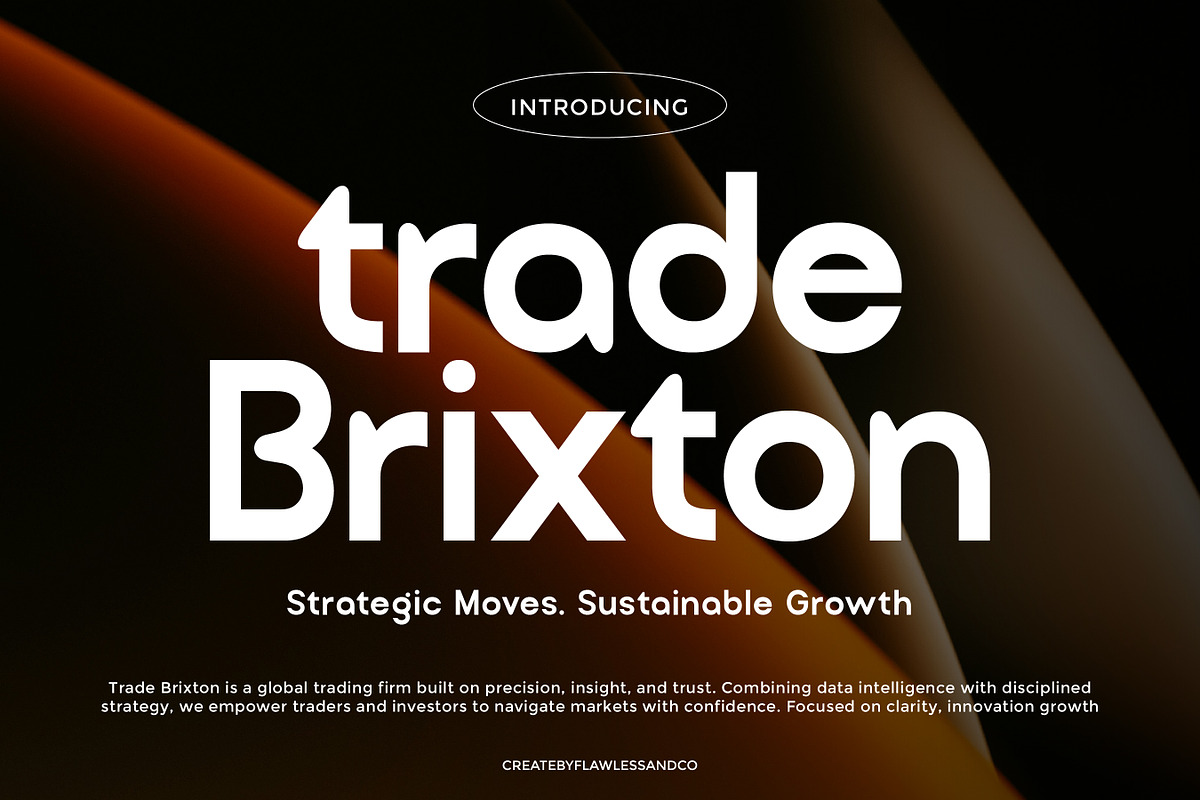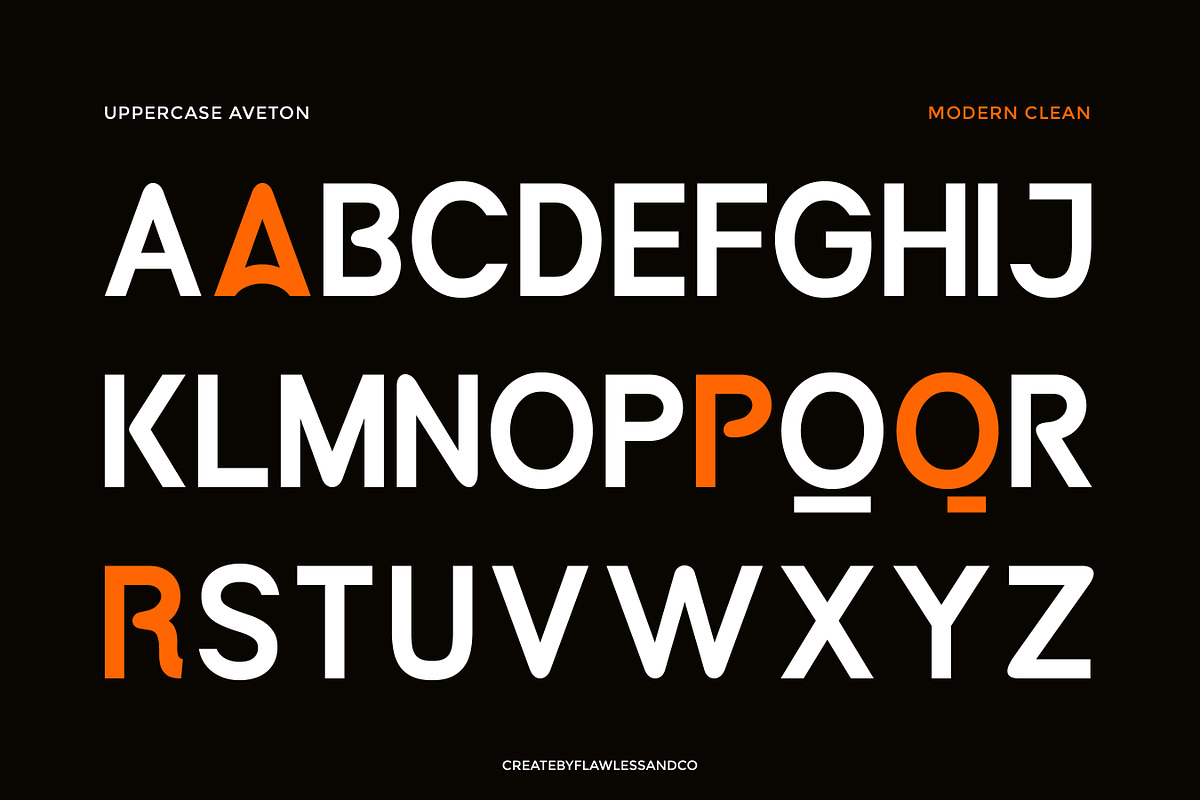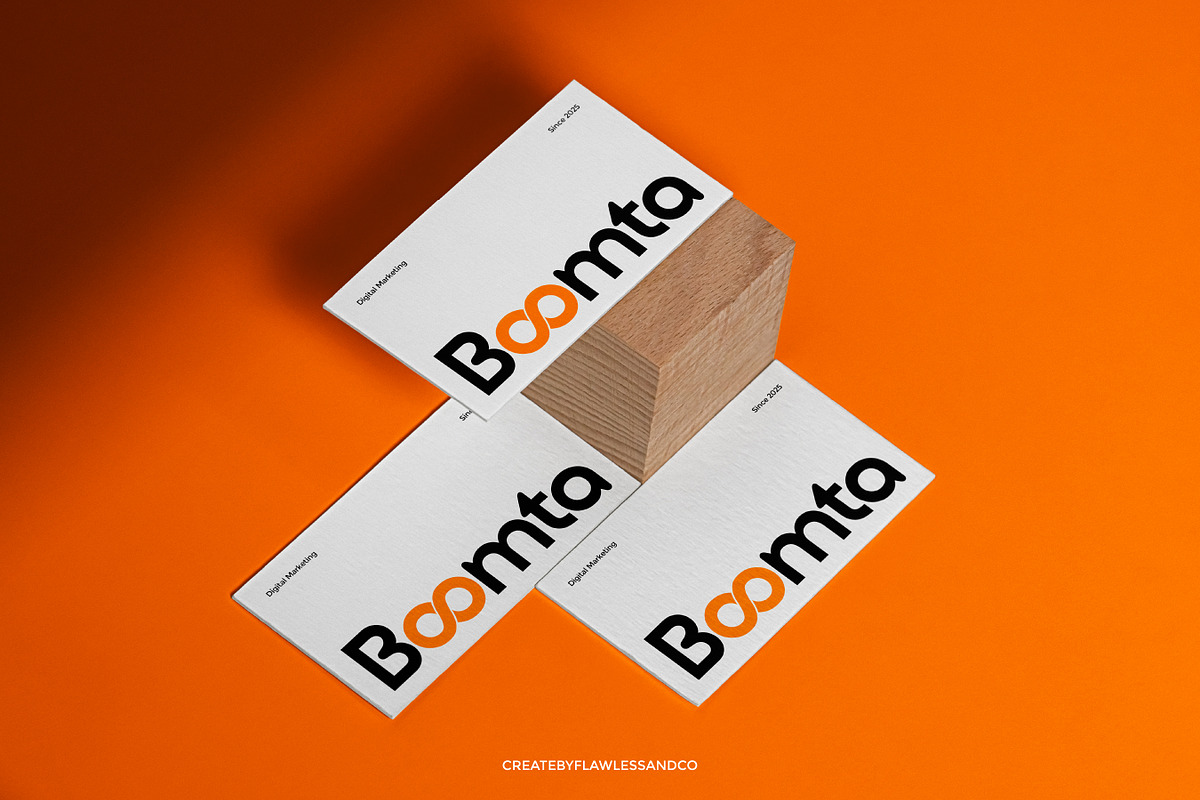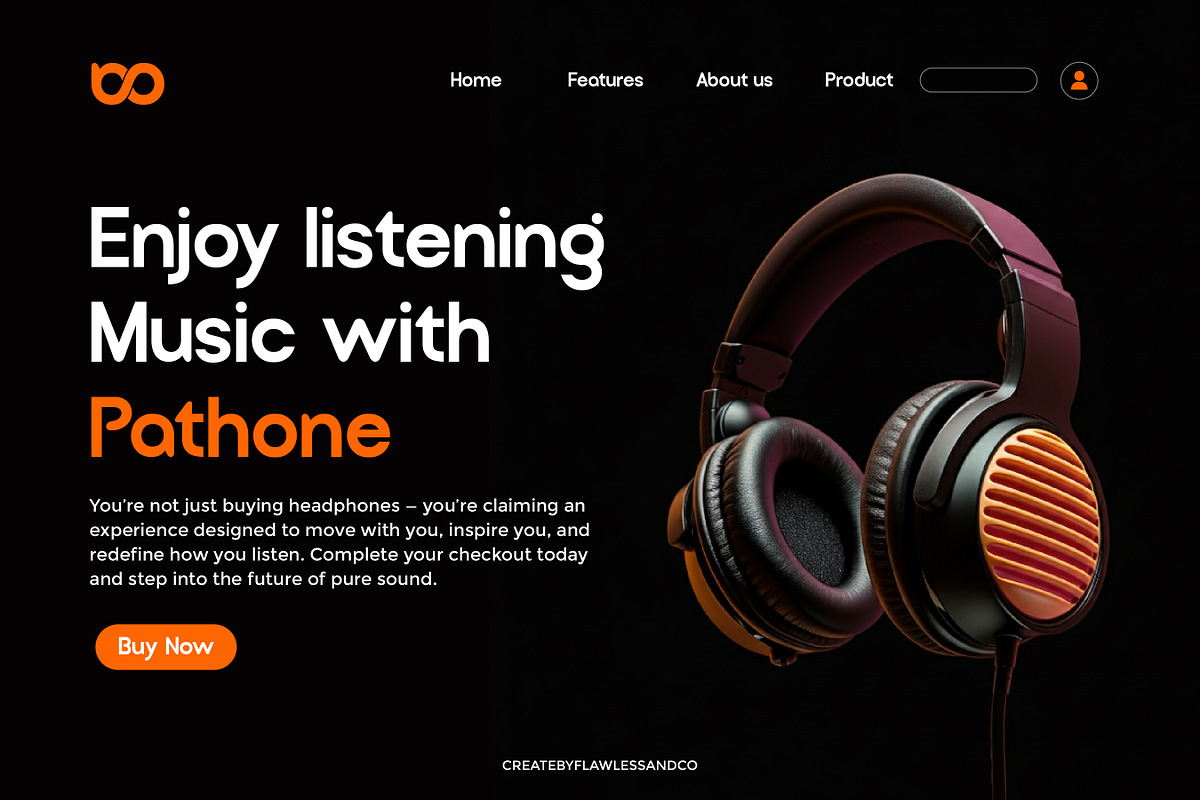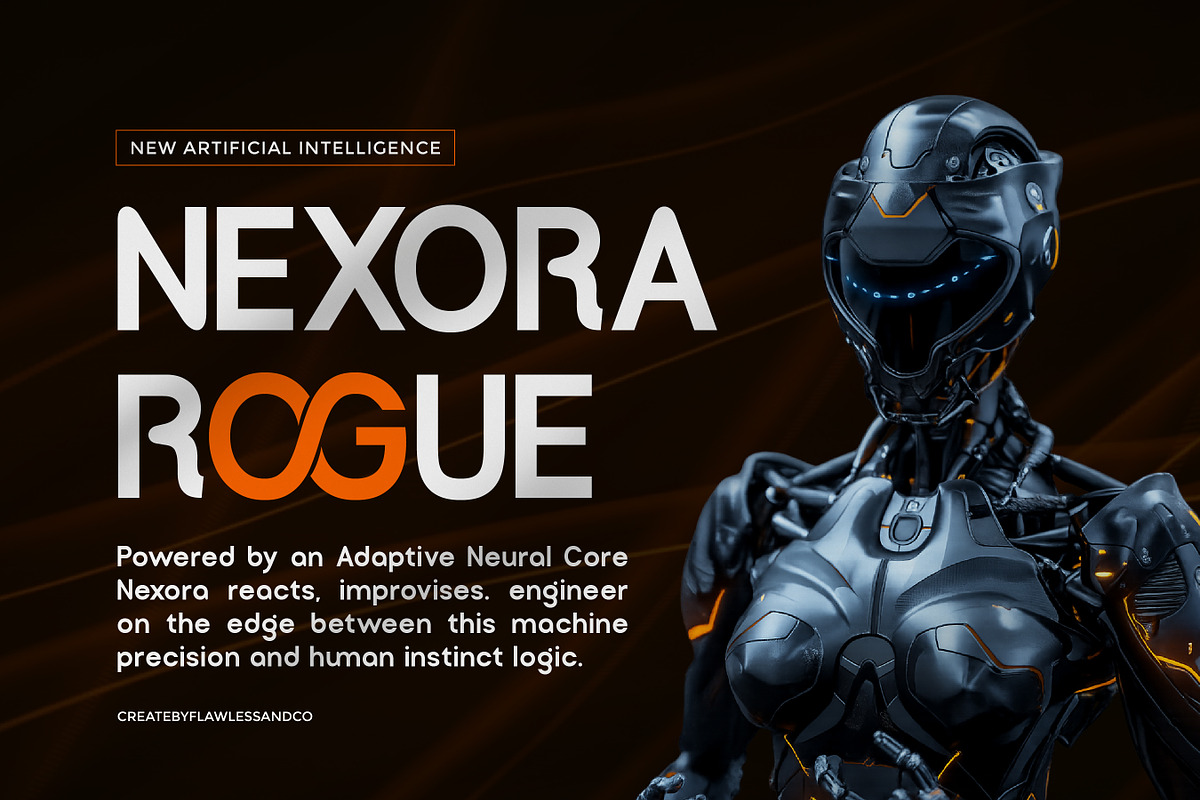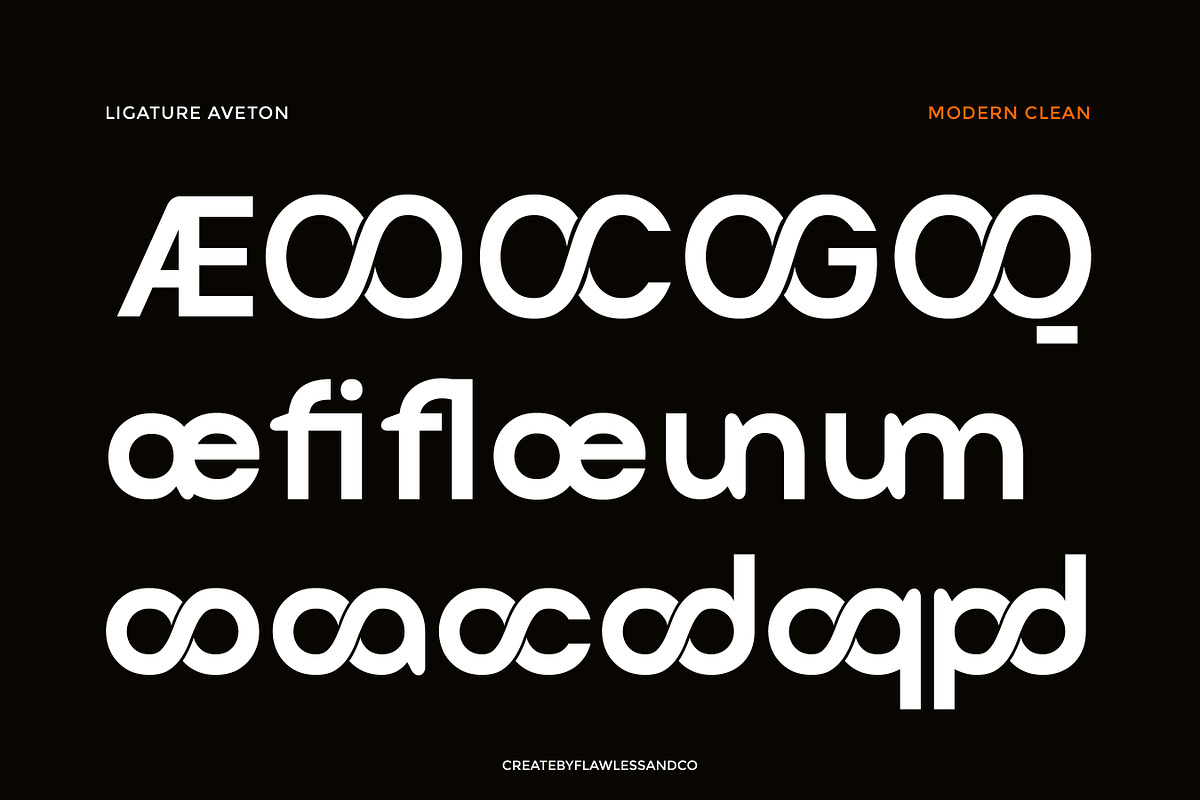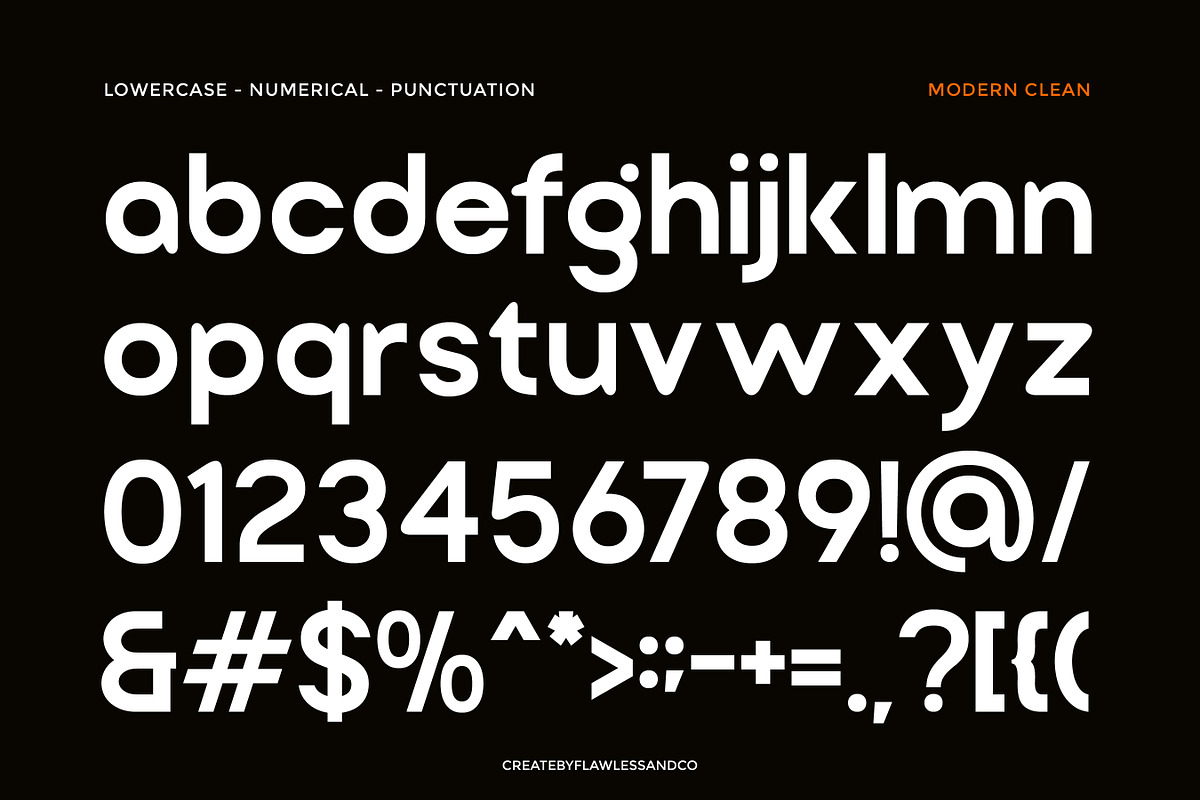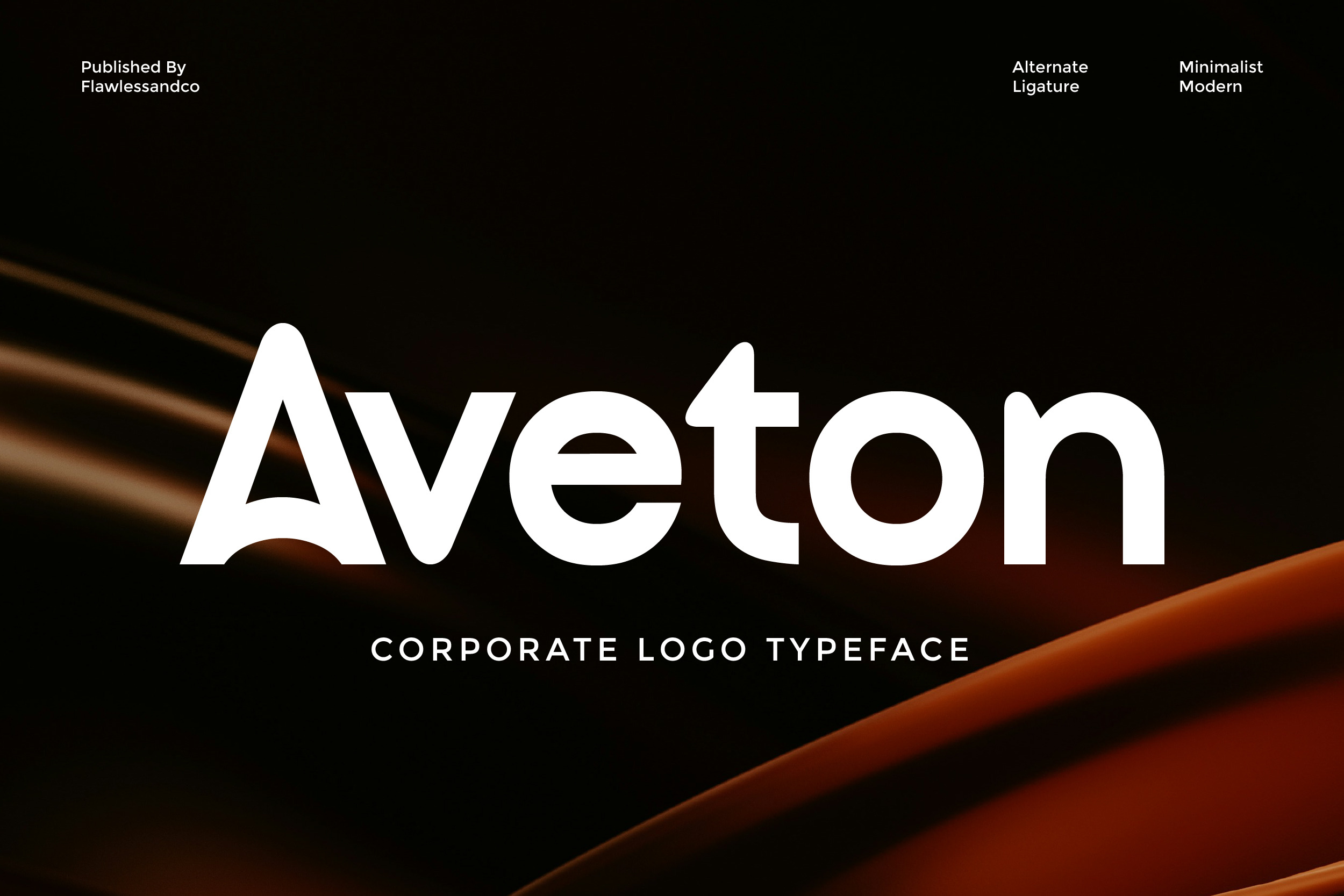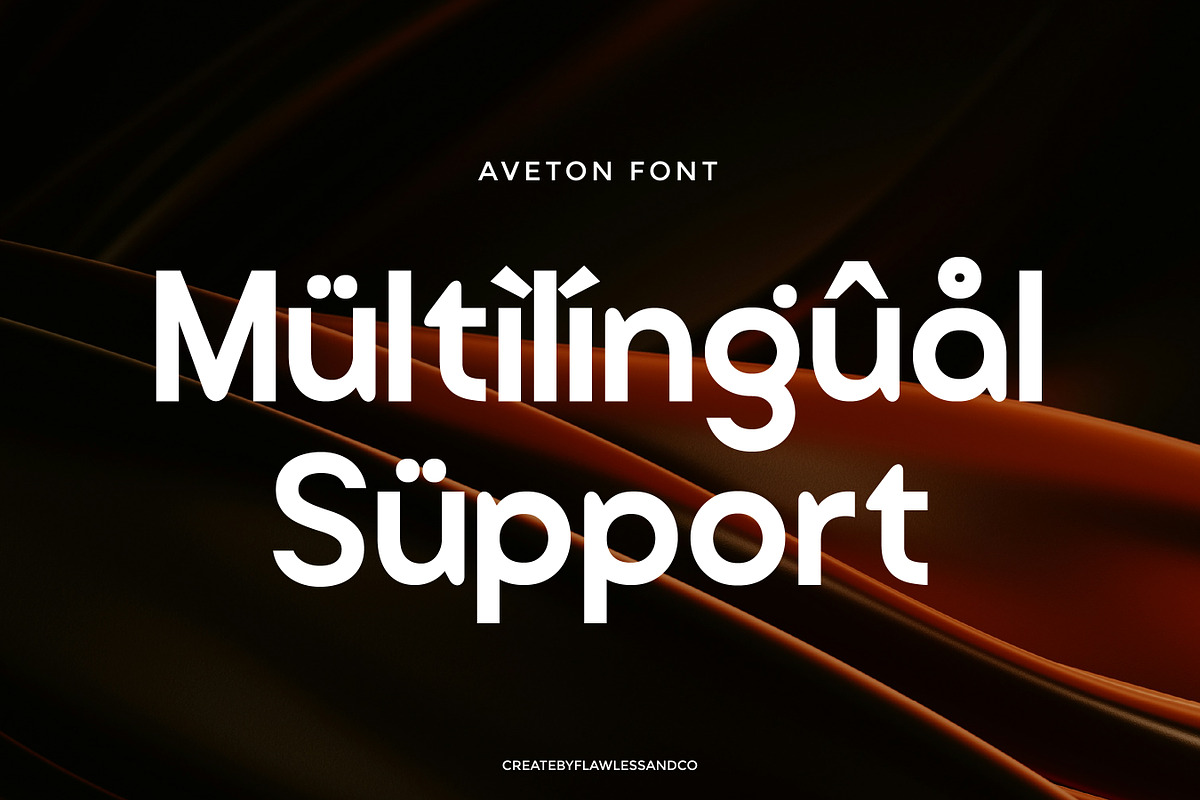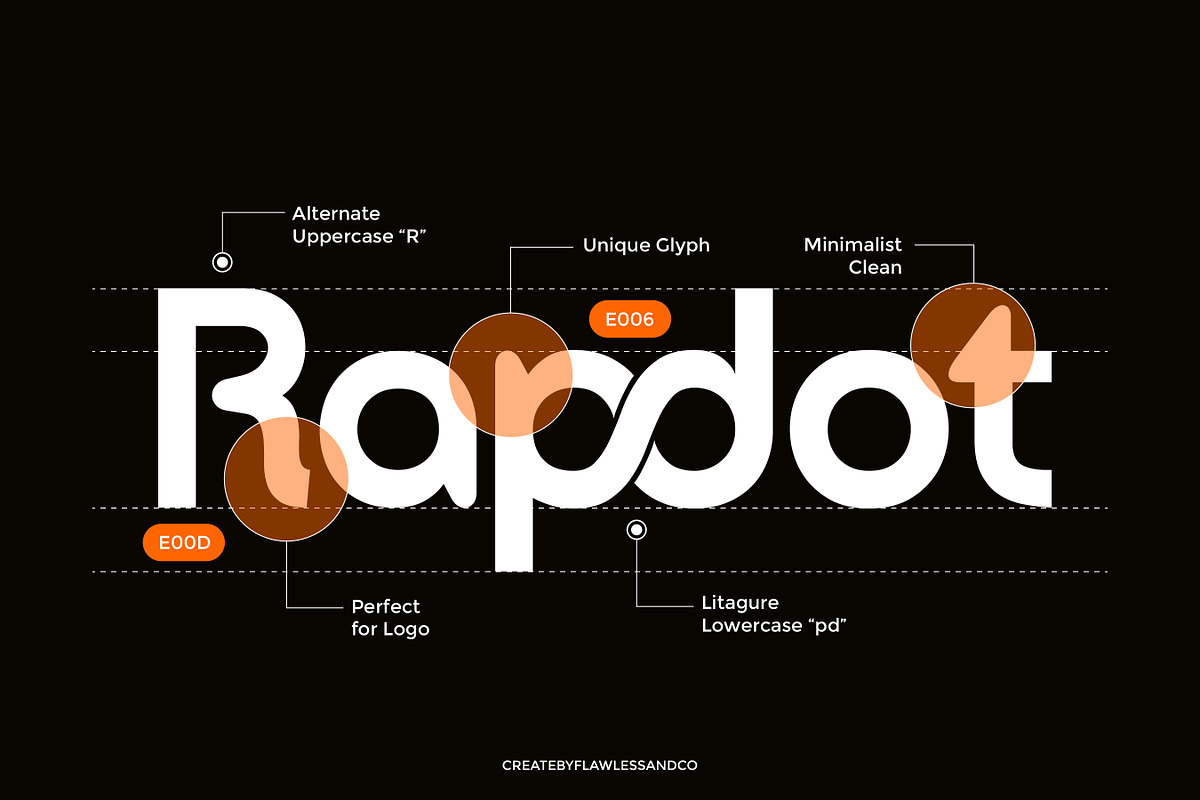
Aveton - Corporate Logo Font
Aveton — Corporate Logo Typeface
Aveton is a modern sans serif typeface crafted for professional brand identities and sleek corporate logo design. Its clean structure, smooth curves, and minimalistic form create a bold yet sophisticated visual impact. Designed with precision and balance, Aveton brings a sense of confidence and clarity to any branding project — perfect for brands that value professionalism, innovation, and timeless appeal. With alternate characters and ligatures, Aveton gives designers the creative flexibility to build distinctive logotypes and visual identities. Whether for a global company, modern tech brand, or creative agency, Aveton ensures every word stands out with elegance and authority.
Who Should Use Aveton?
Aveton is made for professionals, designers, and brands who seek a refined and confident visual identity. It’s perfect for those who want their logos and branding to look clean, modern, and timeless. Whether you’re a creative studio, a corporate brand, or a startup aiming for a strong and trustworthy image, Aveton delivers the perfect balance of elegance and professionalism to elevate your brand presence.
A Must-Have Font for "Brand and Logo" Creators and Designers
Aveton is an essential font for designers and brand creators who value clarity, balance, and modern sophistication. Its clean geometry and professional look make it ideal for crafting powerful logos, premium branding, and corporate visuals that stand out. With its minimalist style and strong structure, Aveton helps you create designs that feel both timeless and confidently modern.
Why Choose Aveton for "Brand and Logo" Projects?
Aveton brings the perfect blend of professionalism and modern design to your brand identity. Its clean lines, geometric precision, and balanced proportions make it highly versatile for corporate use, luxury branding, and logo creation. Every letterform in Aveton exudes confidence and clarity, ensuring your brand looks polished, trustworthy, and visually compelling across all platforms.
Suitable For:
- Brand identities and corporate logos
- Business presentations and professional branding materials
- Modern websites and startup designs
- Editorial layouts and creative portfolios
- Product packaging and promotional media
- Social media graphics and marketing campaigns